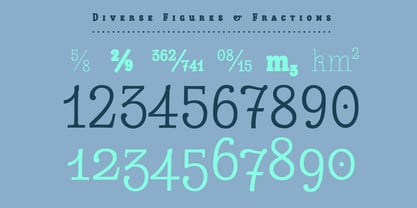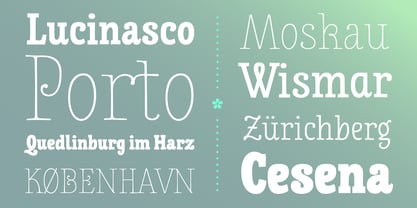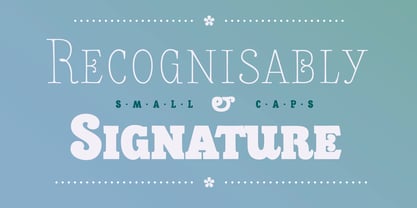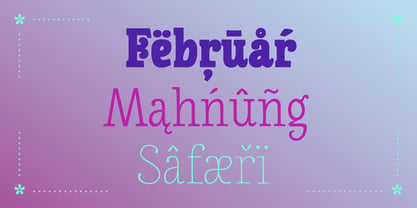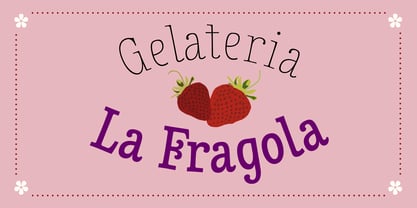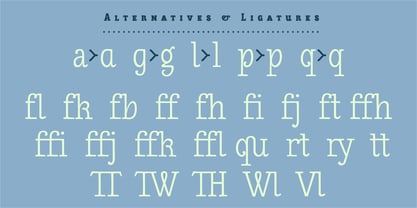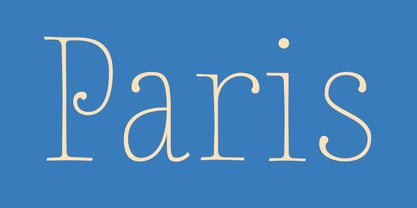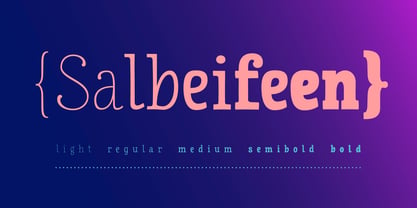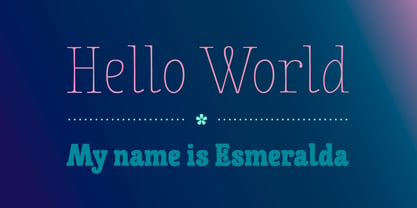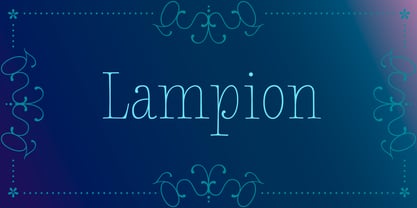
Esmeralda
por Typemotion
La familia tipográfica Esmeralda fue diseñada por Sebastian Wieland y publicada por Typemotion. Esmeralda contiene 5 estilos y opciones de paquete familiar. Más información sobre esta familia
A very well-developed typeface with just under 520 characters per style. It has a very classic look with distinctive details and a slight stroke variation. In addition to all standard uppercase and lowercase letters in numerous languages, the typeface includes various numerals, a functional small-cap set, numerous ligatures, and several alternative characters—some of which are integrated as stylistic sets. It also contains all common arrows and symbols, punctuation marks and accents.
Diseñadores: Sebastian Wieland
Fundición: Typemotion
Typemotion is the personal foundry of designer Sebastian Wieland.